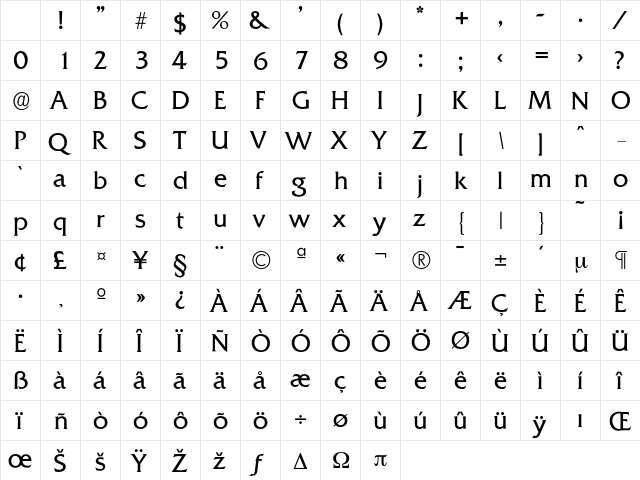
Quadrat-Light is a composed and adaptable typeface that performs quietly and consistently across a wide range of design contexts. Its slender proportions lend an understated elegance to any composition.